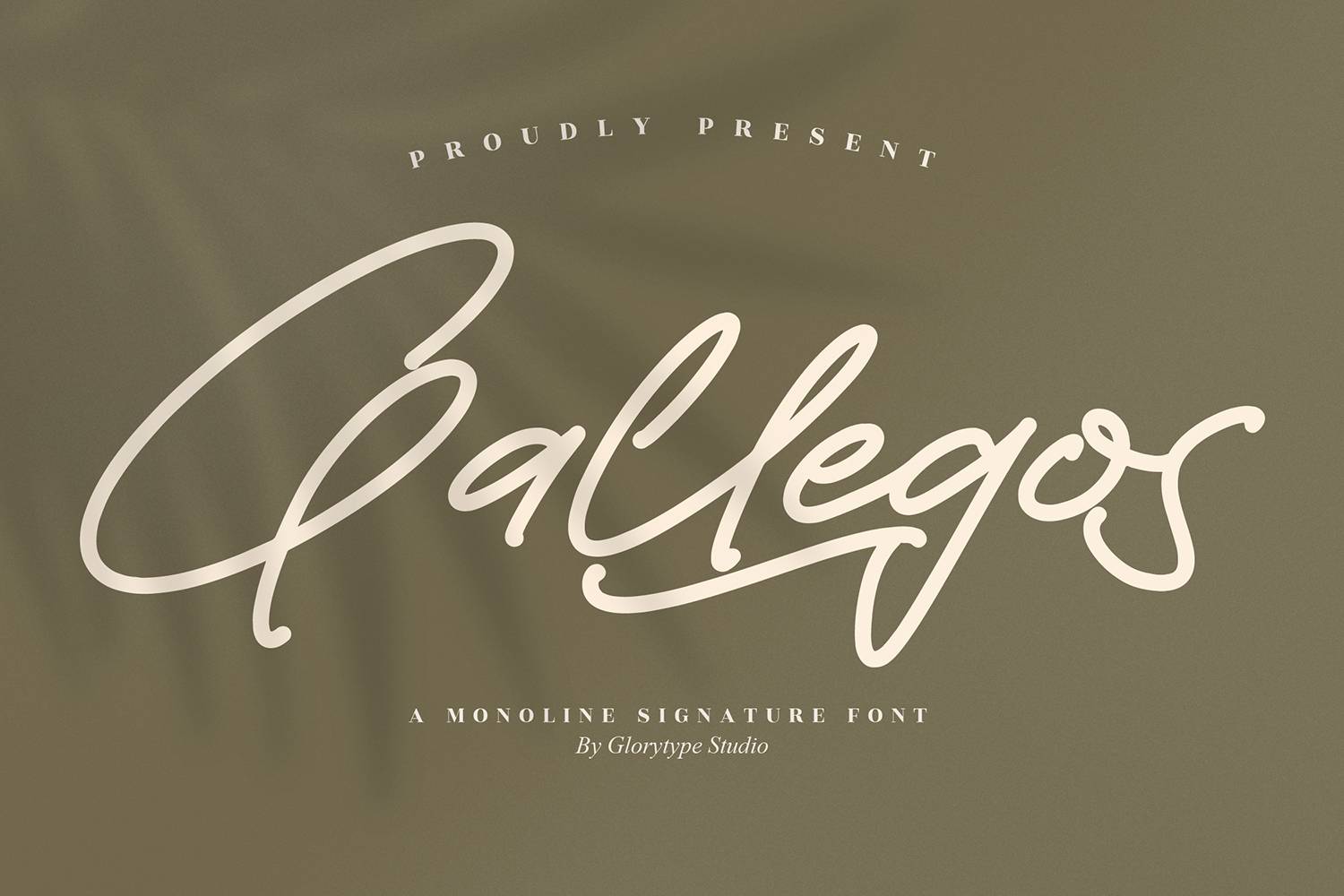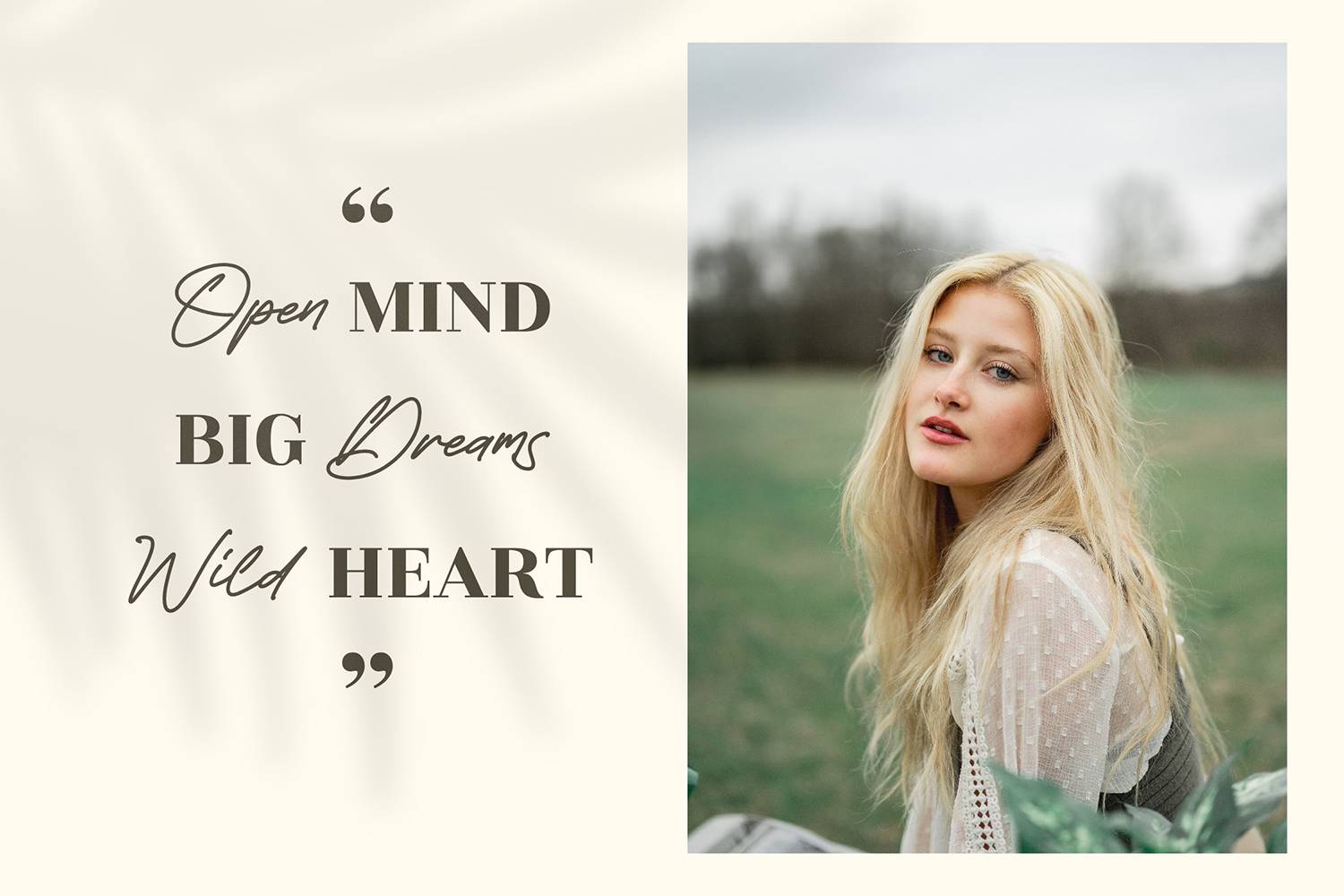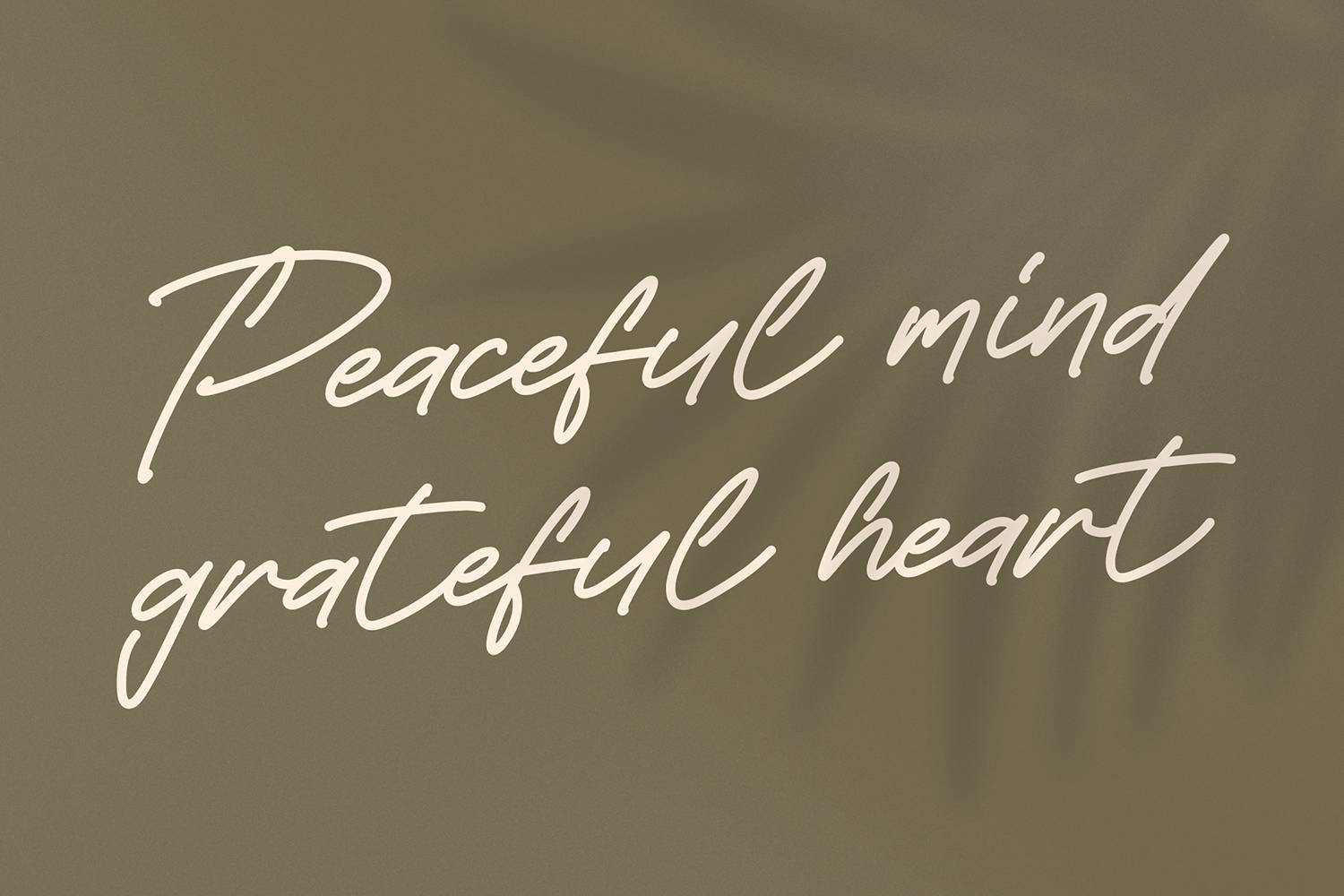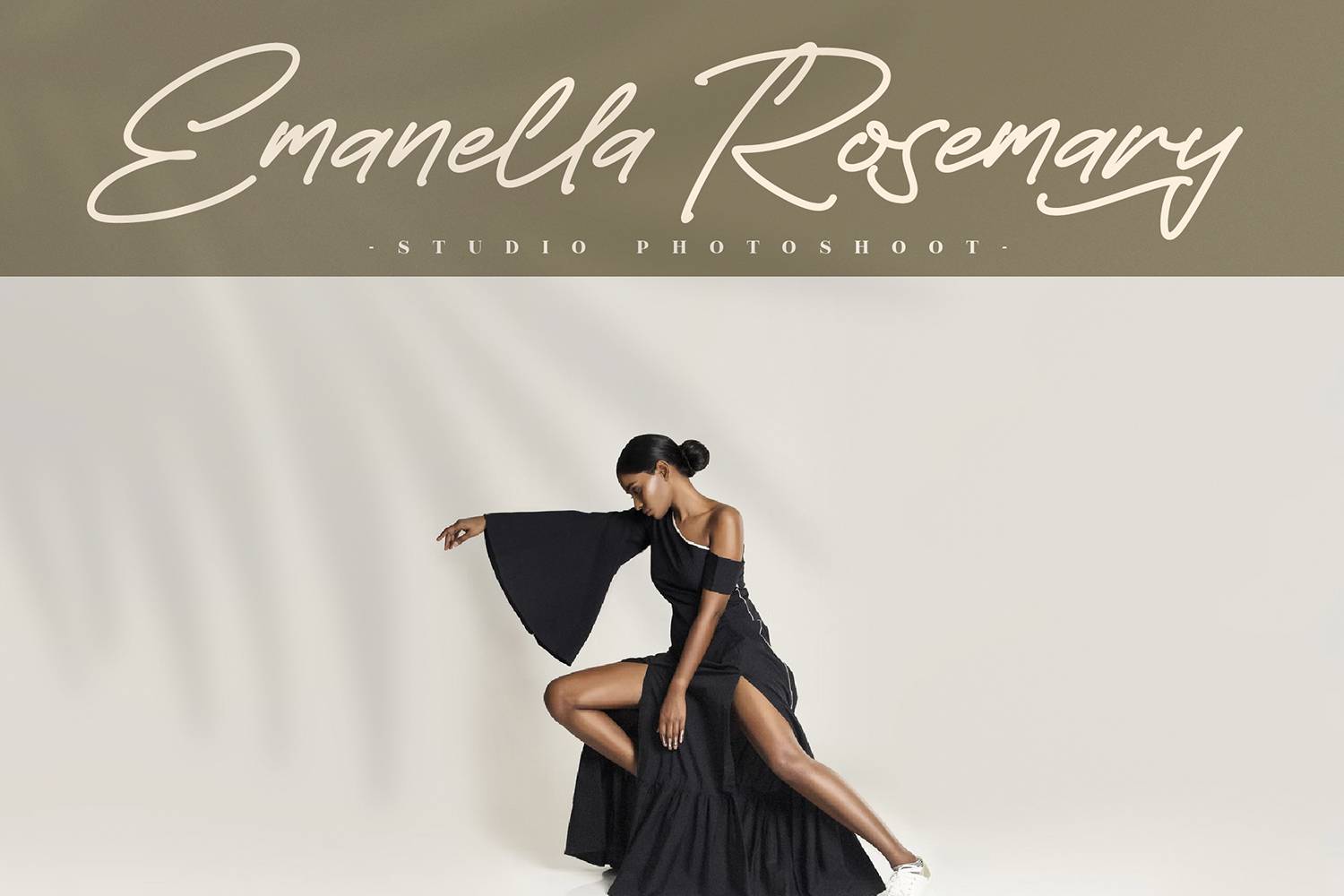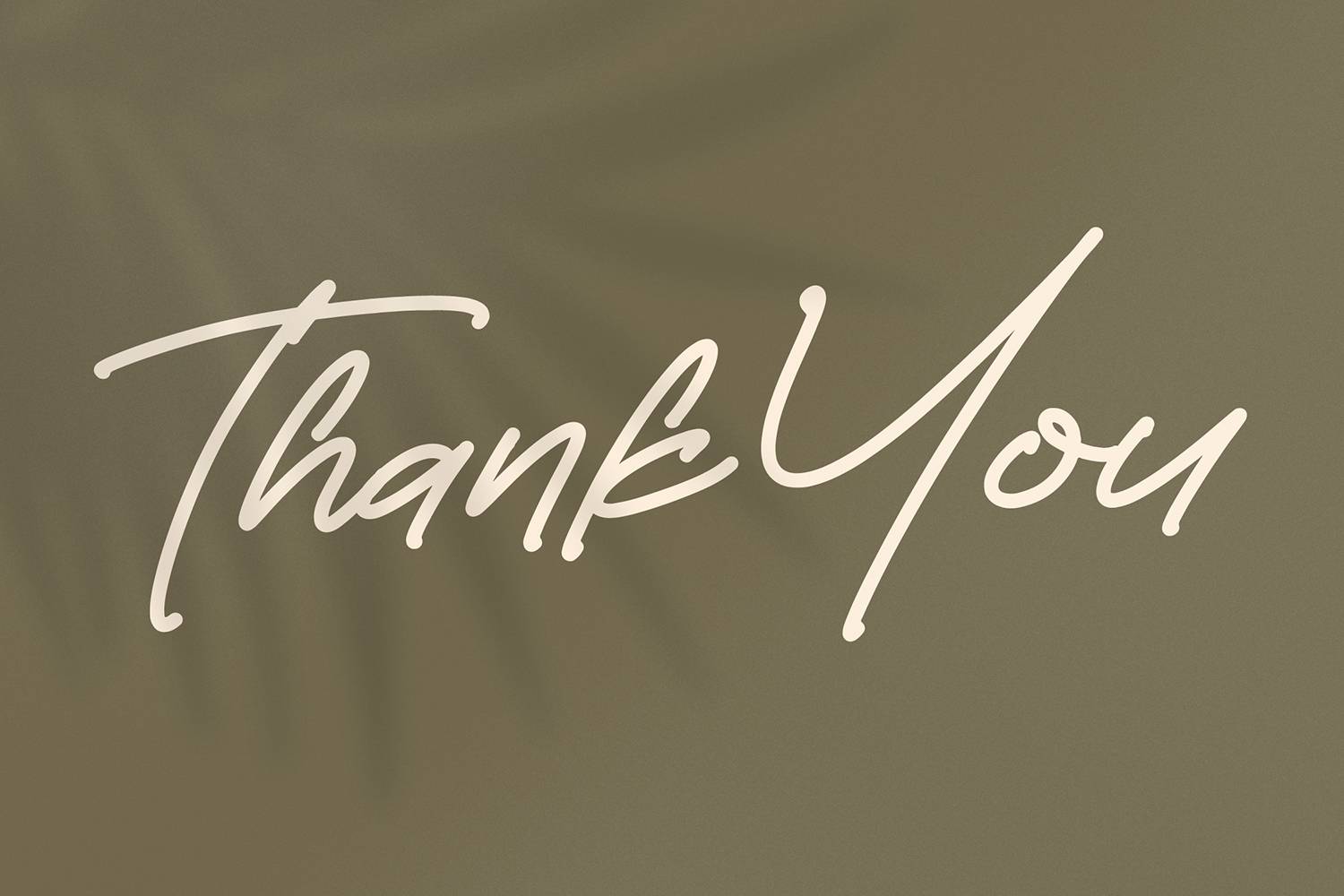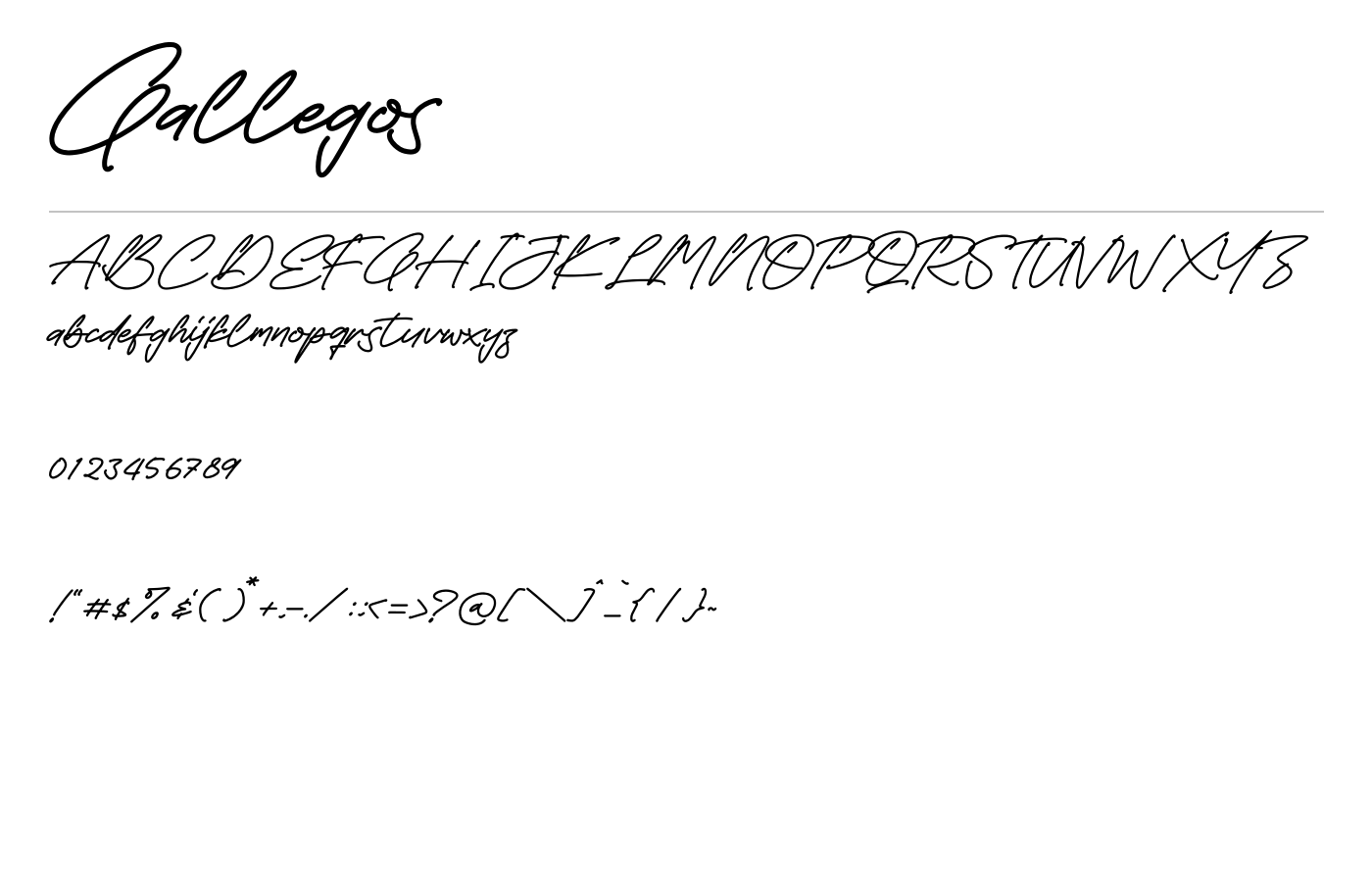
Gallegos is a delicate, elegant script font that mimics natural handwriting with smooth, flowing strokes and a light weight. Its slightly condensed letterforms and high x-height give it a refined yet approachable feel, making it ideal for invitations, branding, and editorial designs that seek a personal, sophisticated touch. This font works best in contexts where a graceful, stylish impression is desired without sacrificing readability.
Gallegos Font
About Gallegos Font